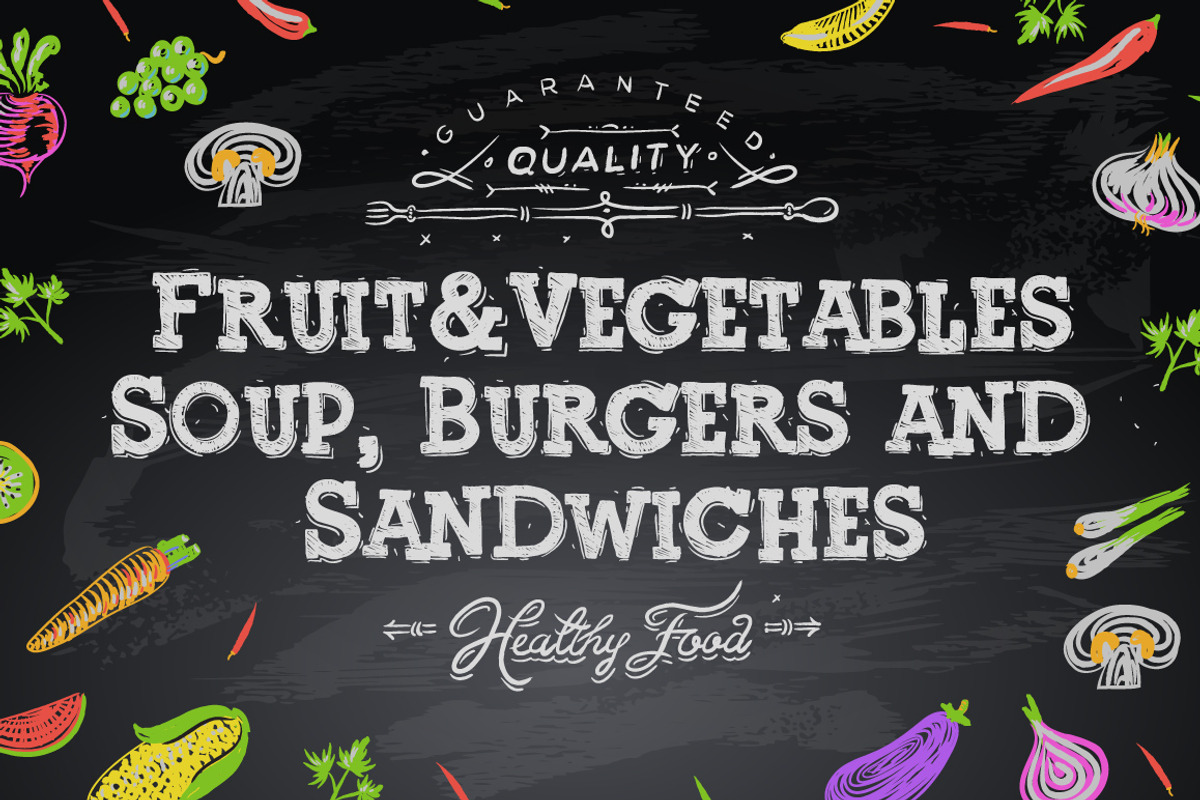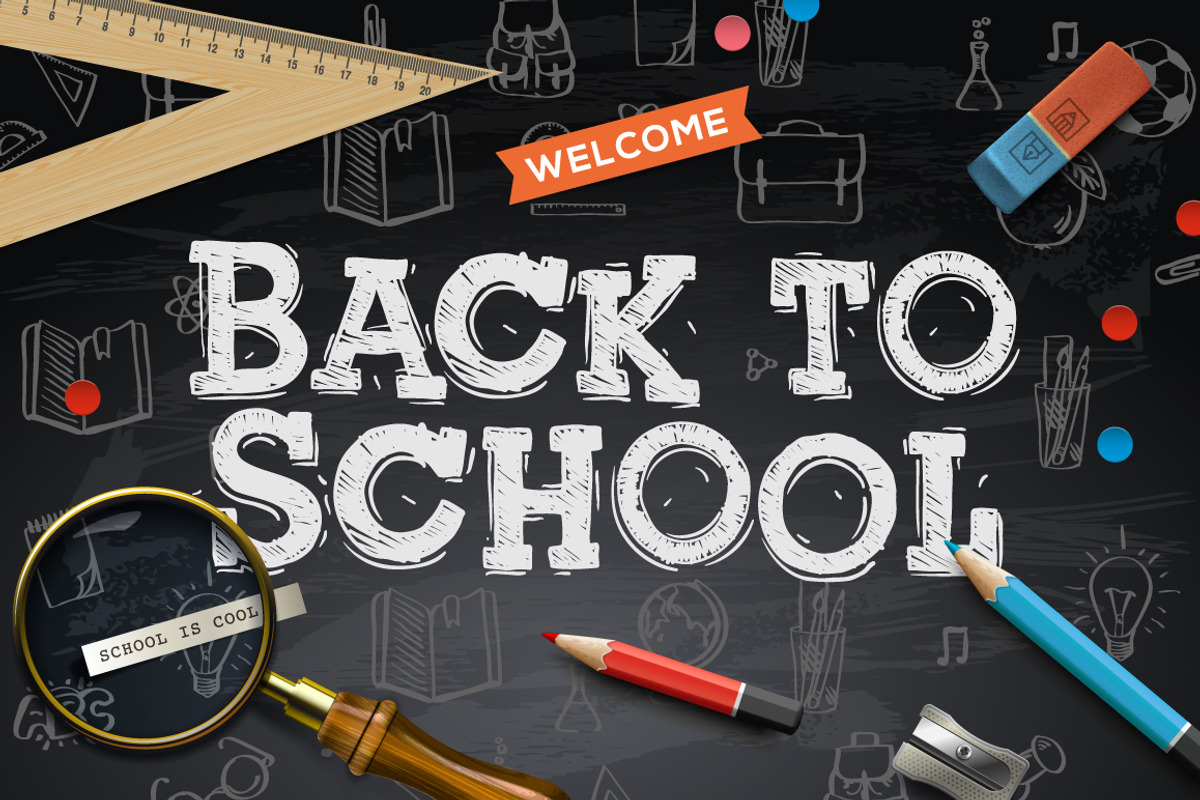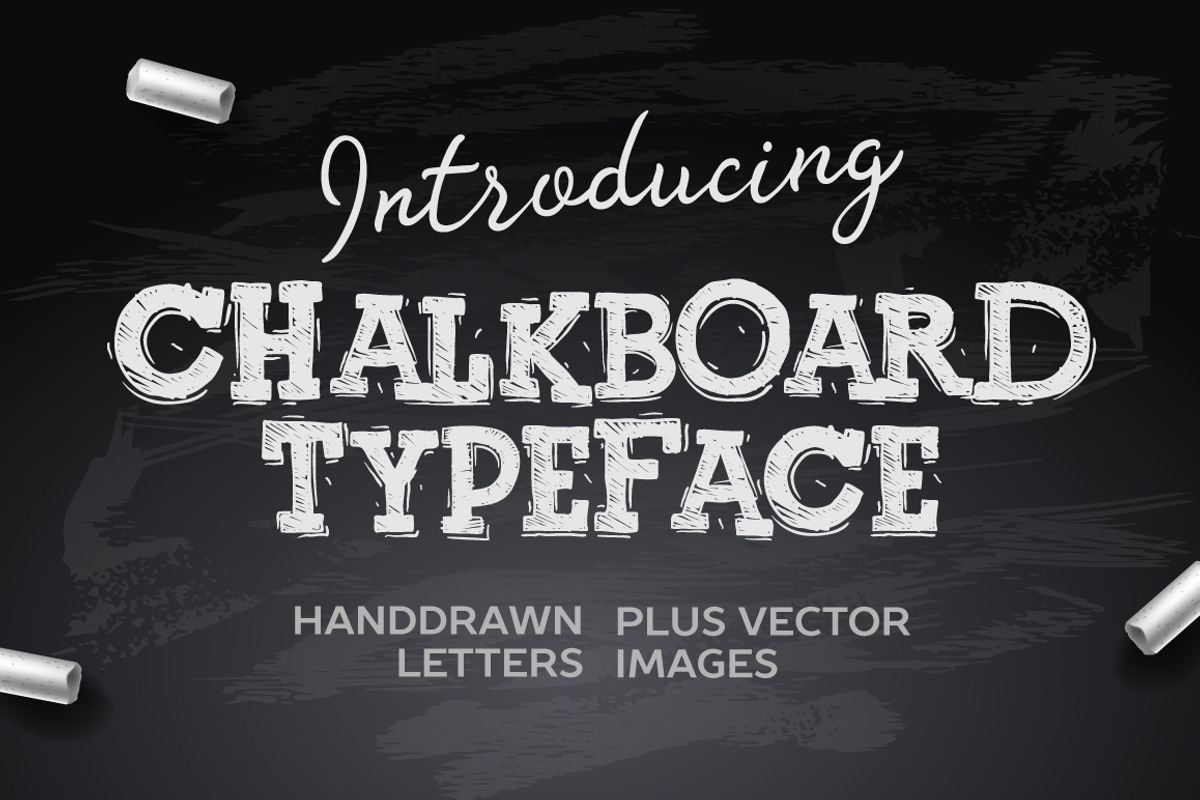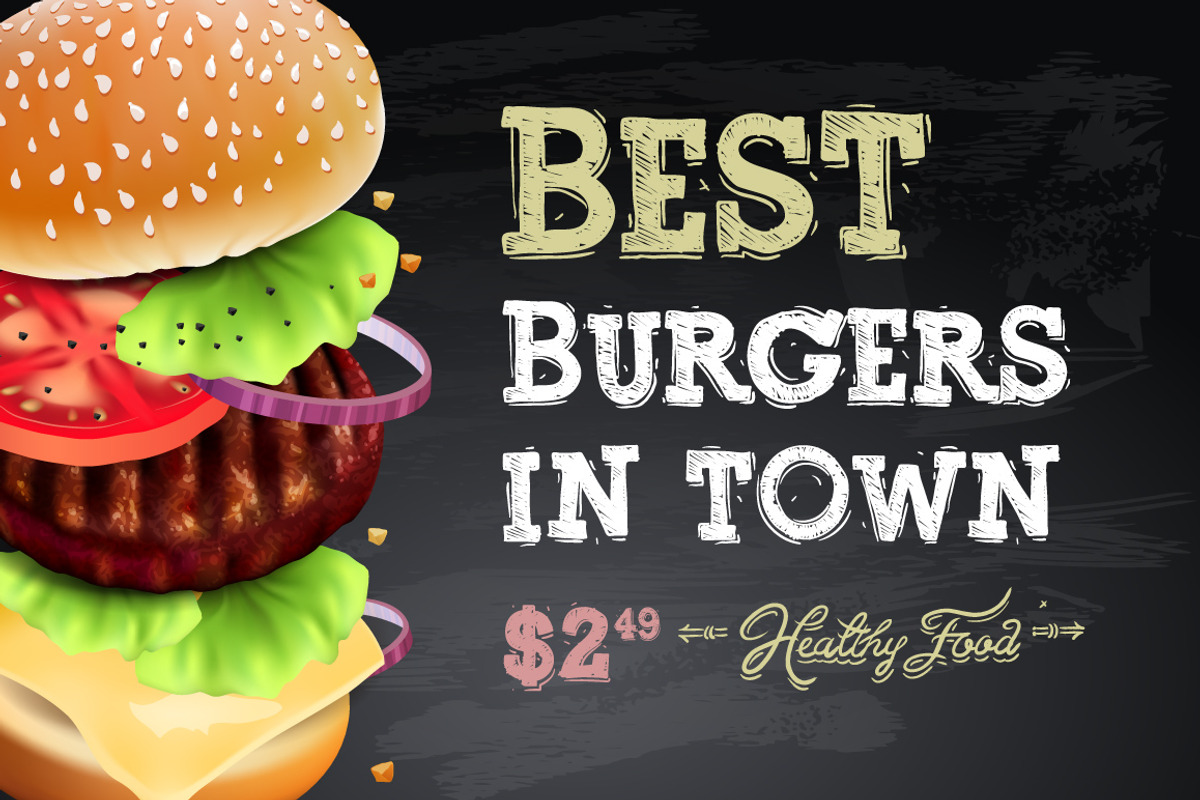
Chalkboard typeface
Chalkboard typeface is a hand-drawn font. It comes with upper characters, punctuation glyphs, numerals, stylistic alternates for several letters. Archive including all slides from presentation in vector eps.10 (burger, school supplies... etc)